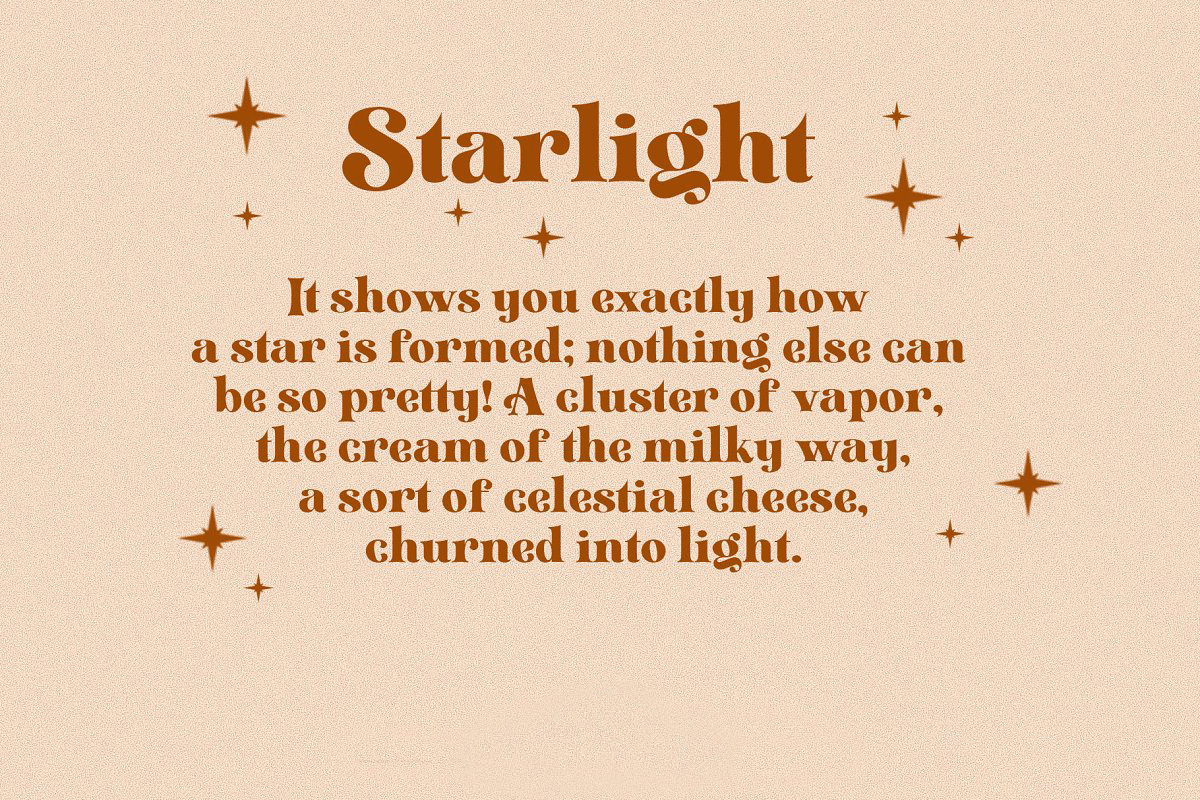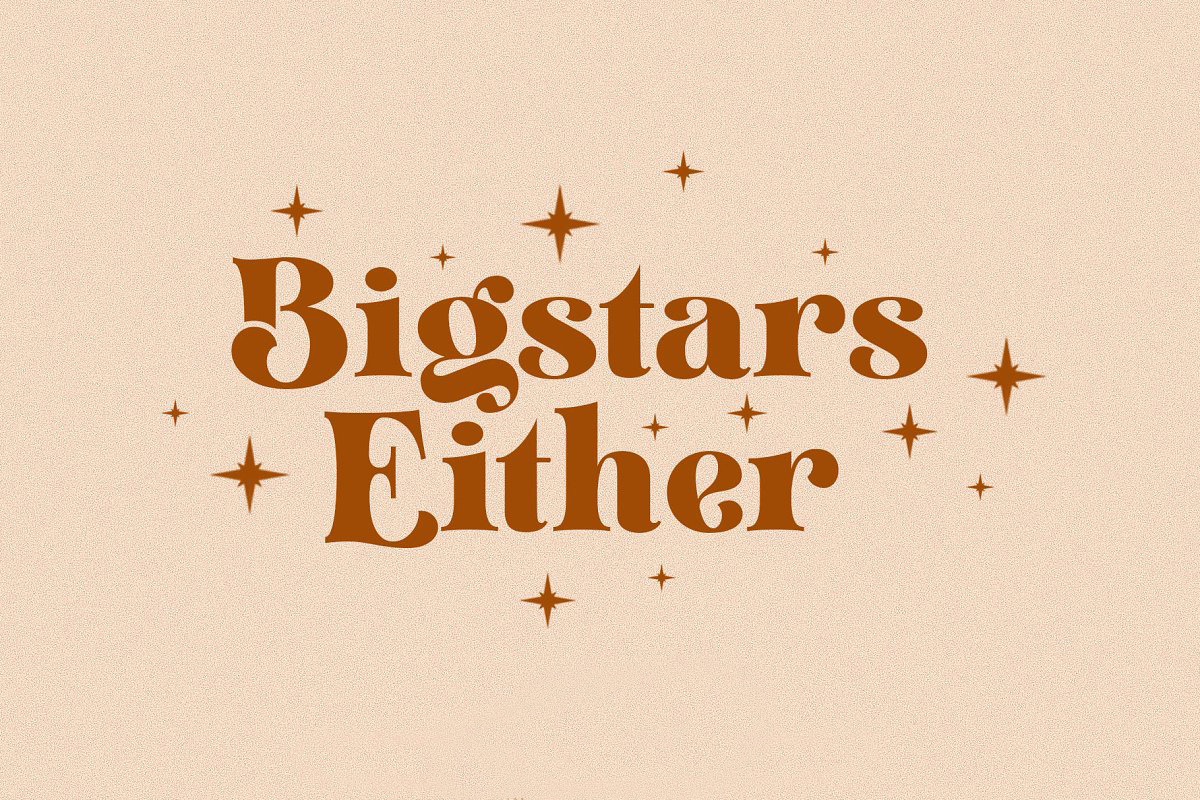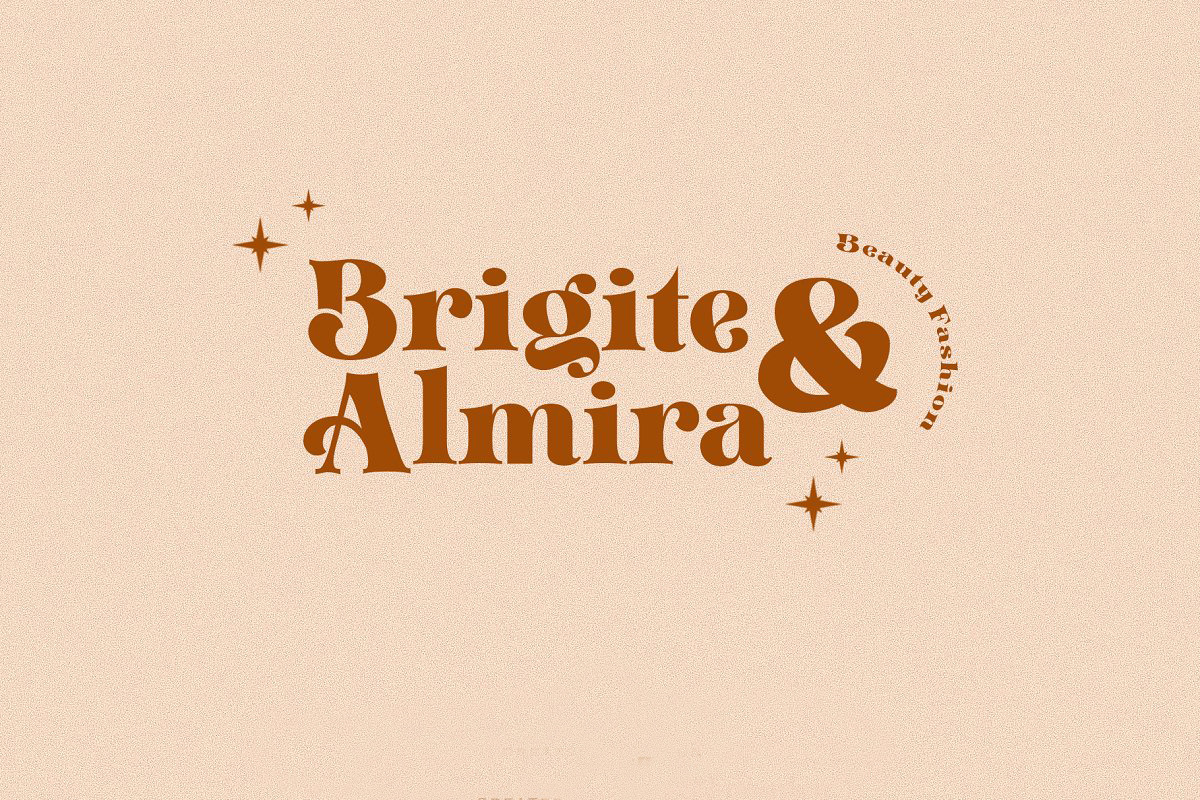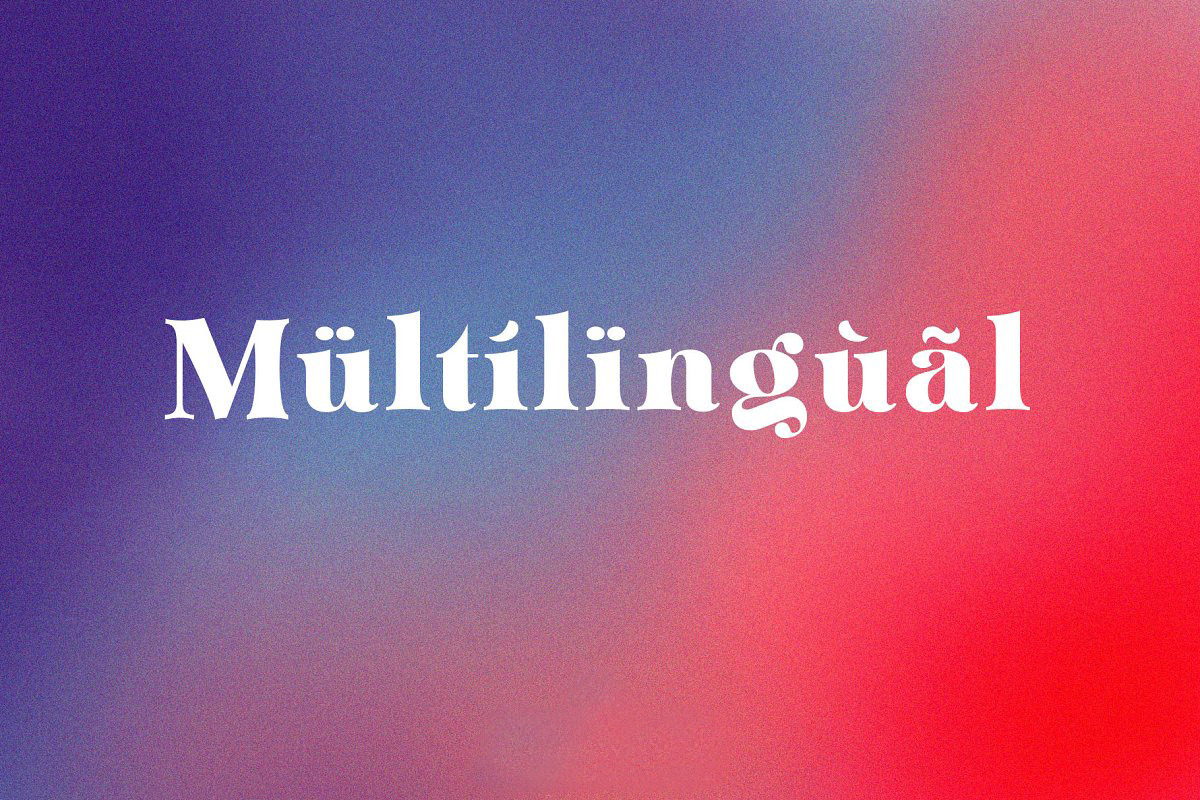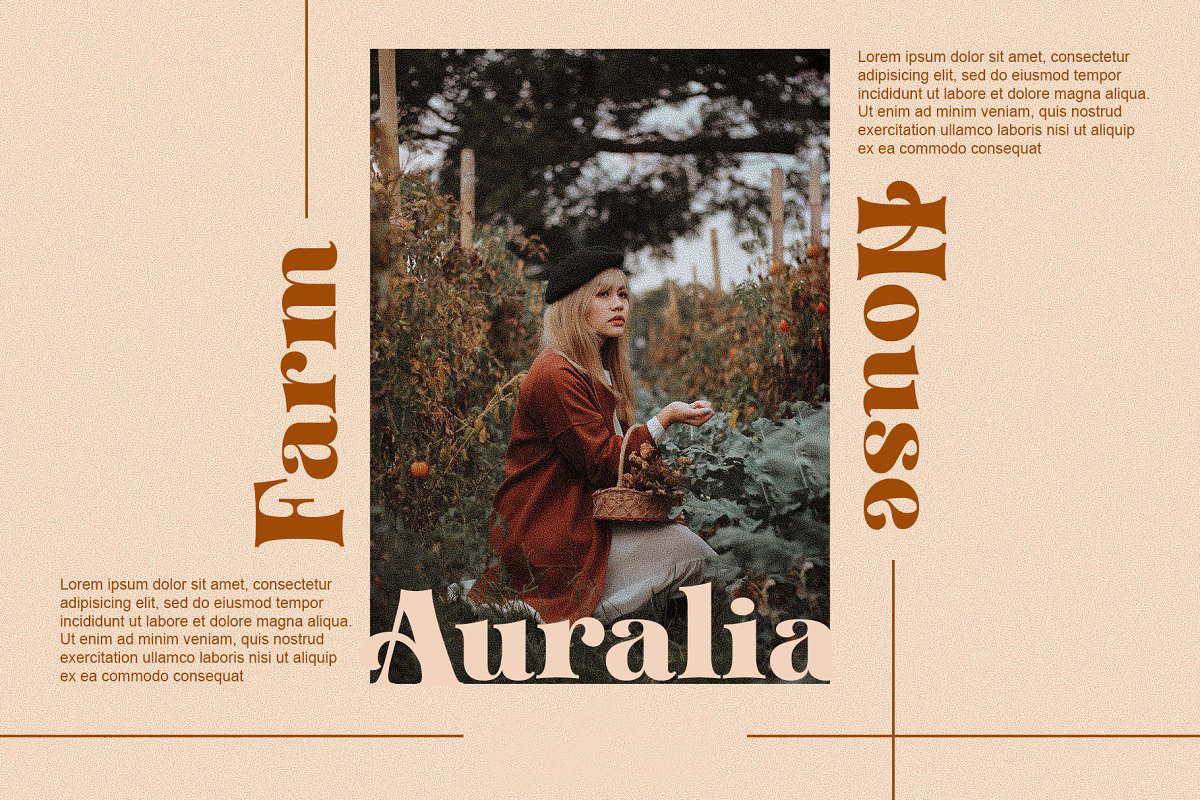
Bigstars Either
Hello everyone, This time we want to introduce our latest product, "Bigstars Either" a font designed with a fun, free and simple concept. of course at an affordable price. This font will add nuance to any of your work.
FEATURE
- Numeral
- Functional